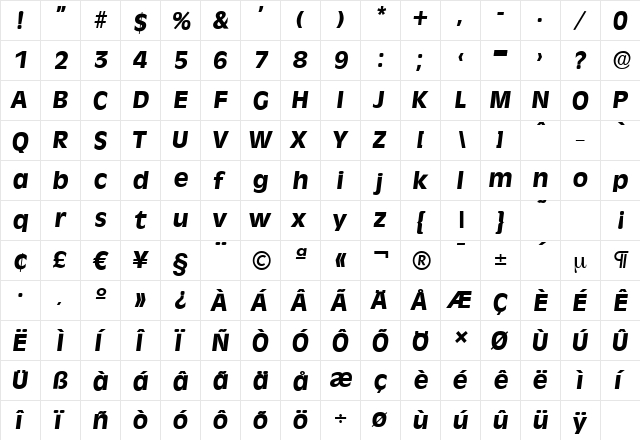
RavennaSerial-Xbold Italic
Design Context for RavennaSerial-Xbold Typeface
RavennaSerial-Xbold offers clean, dependable letterforms without strong stylistic allegiance, making it a practical choice for designers who need flexibility. The slanted form adds forward momentum and visual energy. Its bold stroke weight gives it real presence on the page.
Pro Tip: Try RavennaSerial-Xbold for annotation and caption copy alongside an upright companion — the contrast in angle creates a dynamic but ordered typographic system.